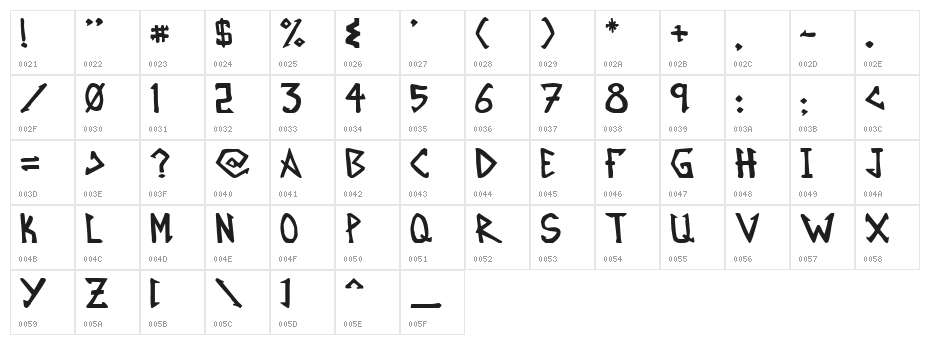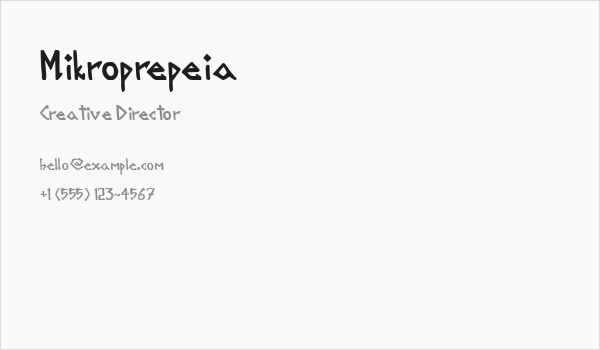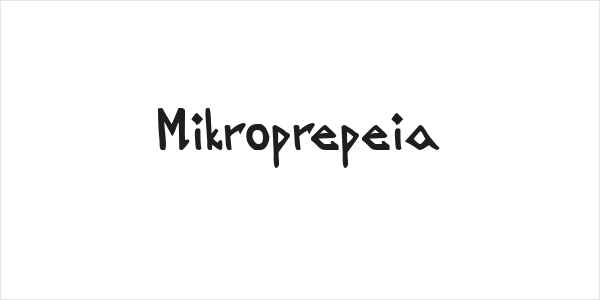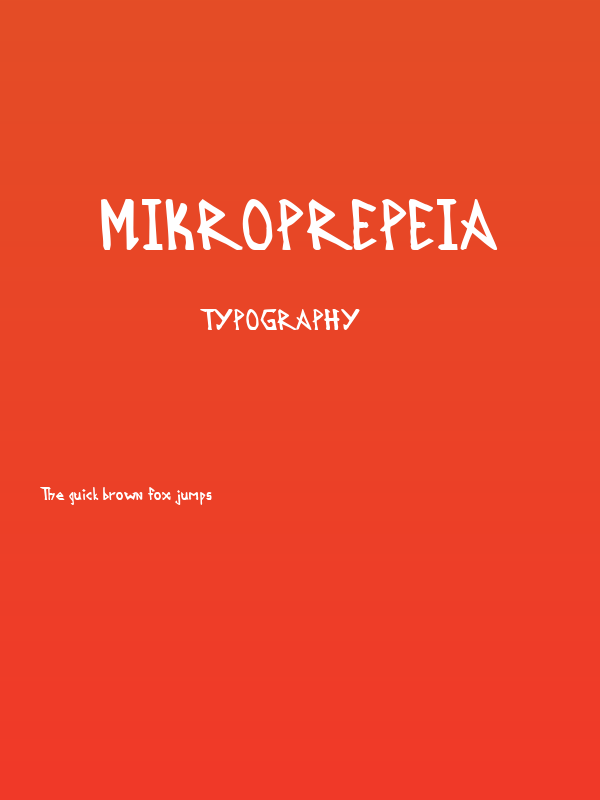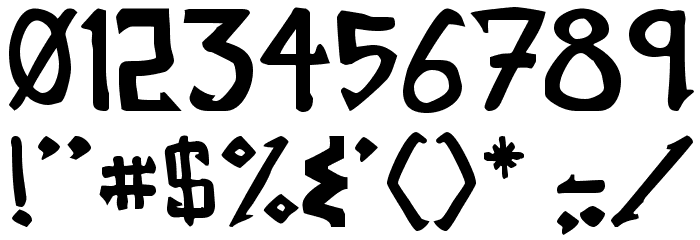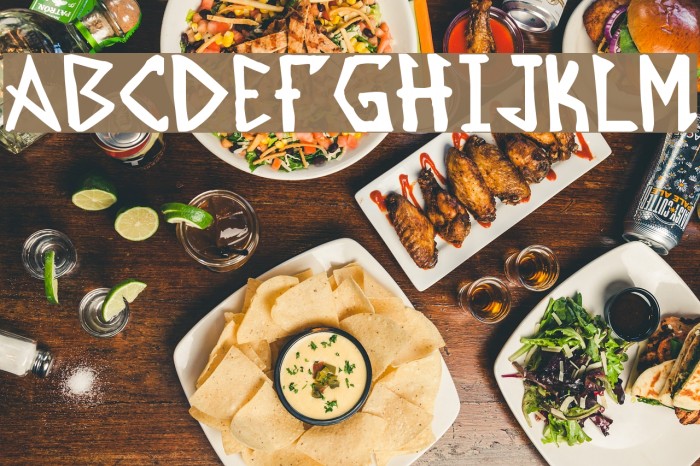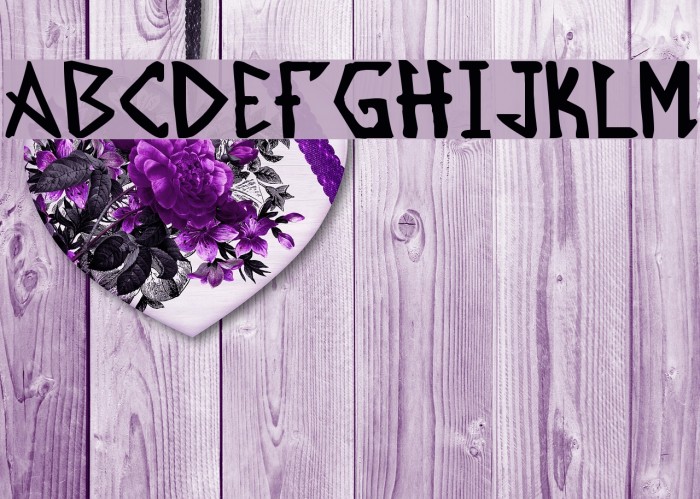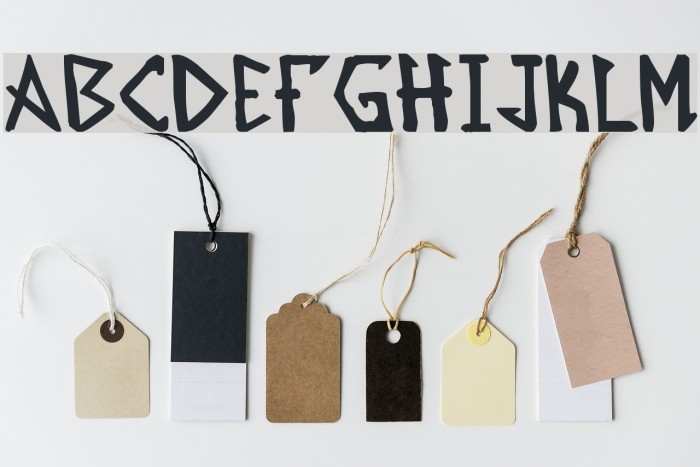
Mikroprepeia Font
Mikroprepeia Description
This font exhibits a bold and playful style with a hand-drawn appearance. The characters are irregular and quirky, giving off a casual and artistic vibe. The uppercase and lowercase letters maintain a consistent style, with angular and slightly uneven strokes that add to its charm. Numbers and special characters follow the same design ethos, ensuring a cohesive look across all glyphs. The font's unique character makes it suitable for creative projects that require a touch of whimsy and individuality.
| Overall Style | Playful, Artistic |
| Use Case | Headlines, Posters, Creative Branding |
| Proposed Projects | Ideal for children's books, comic strips, artistic posters, and creative branding. |